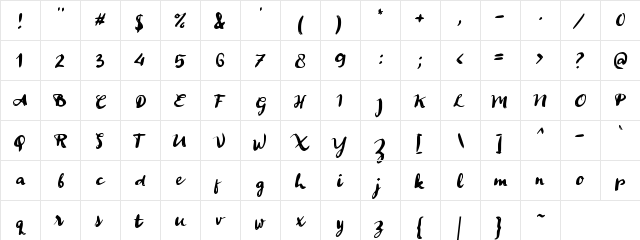
a Ancen Solutip Solutip
| Designer | Wahyu Eka Prasetya |
Design Context for a Ancen Solutip Typeface
a Ancen Solutip is a composed and adaptable typeface that performs quietly and consistently across a wide range of design contexts.